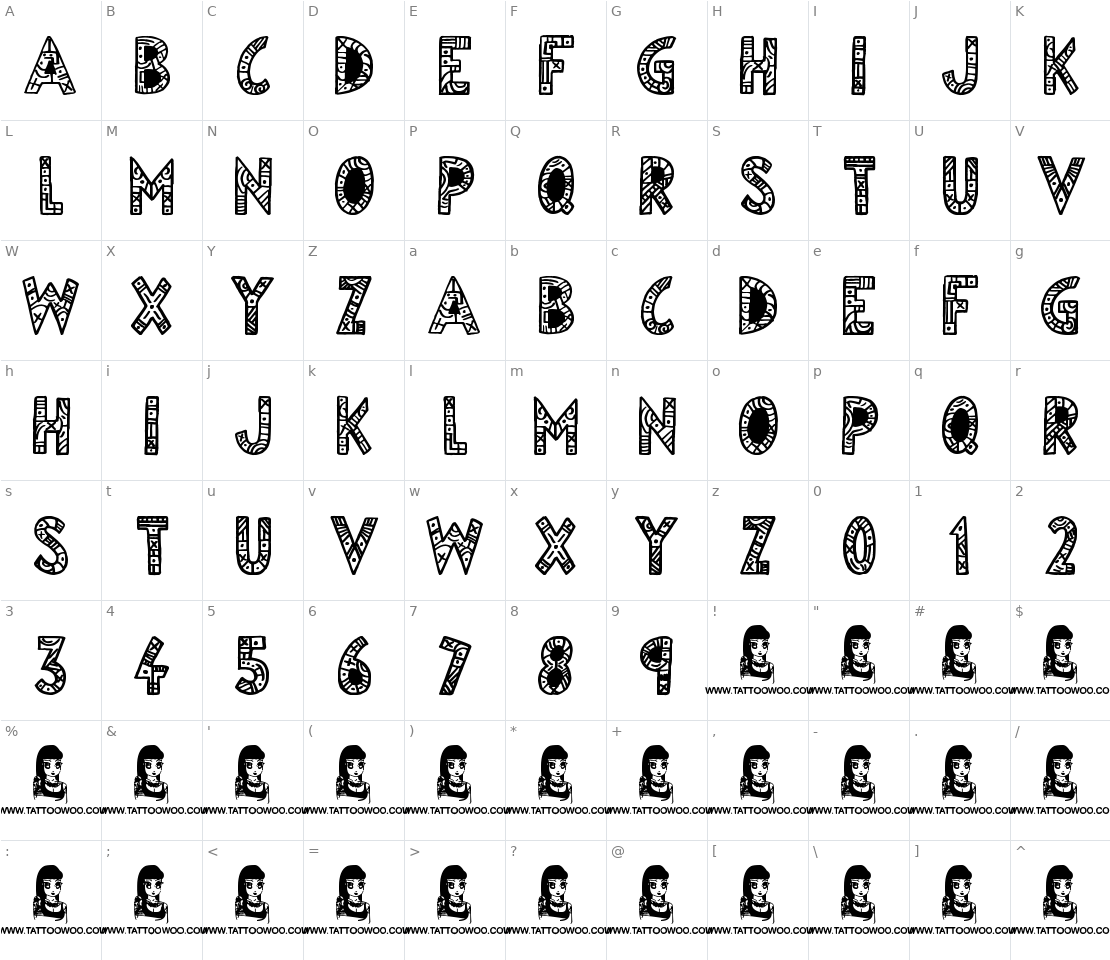
Egyptian Nights
Egyptian Nights is a decorative display face by Jonathan S. Harris with letterforms built from patterns and motifs that echo ancient Egyptian art and hieroglyphic aesthetics. Each character feels densely ornamented, carrying that unmistakable Nile-civilization visual language into a usable alphabet. Strictly a headline and title font, best reserved for themed projects, event posters, or packaging where the ornamental detail has room to read clearly.